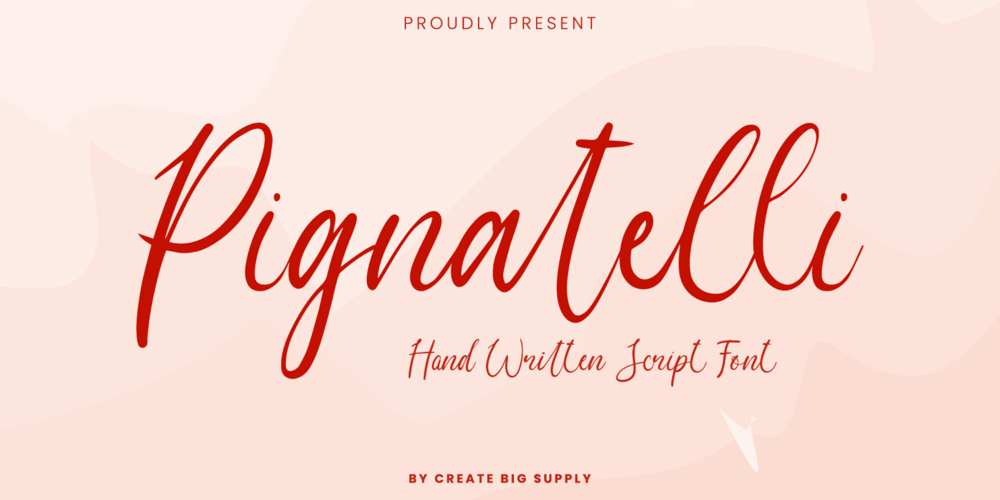
Pignatelli
Pignatelli font
Pignatelli Font Family was designed by Irpan Maulana and published by Create Big Supply. Pignatelli contains 1 styles and family package options. Unleash your creativity with Pignatelli and explore its versatility. Whether you’re designing stunning wedding invitations, crafting beautiful stationery art, or creating engaging social media posts, this font will add a touch of refinement and charm to your projects. Its seamless blend of uppercase and lowercase characters, combined with its extensive set of numbers and punctuations, ensures a seamless and cohesive visual experience.Pignatelli Script Font is not bound by language barriers. With its multilingual support, you can express your creativity in various languages, reaching a global audience. Additionally, the font is PUA encoded, granting you effortless access to its wide array of amazing glyphs and ligatures. Add a touch of uniqueness to your designs and explore the endless possibilities.Elevate your typography game with Pignatelli Script Font. Its full character set offers a comprehensive range of symbols, ensuring you have everything you need to create visually stunning designs. Embrace the elegance and grace of Pignatelli Script Font and let your designs speak volumes.